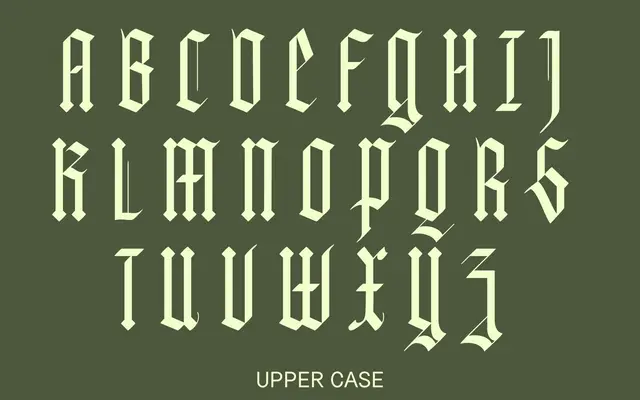
A condensed blackletter display face covering Latin Extended with a single Regular weight.
Fayte is a condensed blackletter designed for display use, offered in a single Regular weight. The character set covers Basic Latin, Latin-1 Supplement and portions of Latin Extended-A, giving it reasonable reach across Western European languages. Its condensed proportions make it suited to posters, logotypes and editorial headings where a tight blackletter texture is needed.
Explicitly described as a condensed blackletter font; the glyph set and style description confirm a blackletter category with a condensed cut as the primary offering.